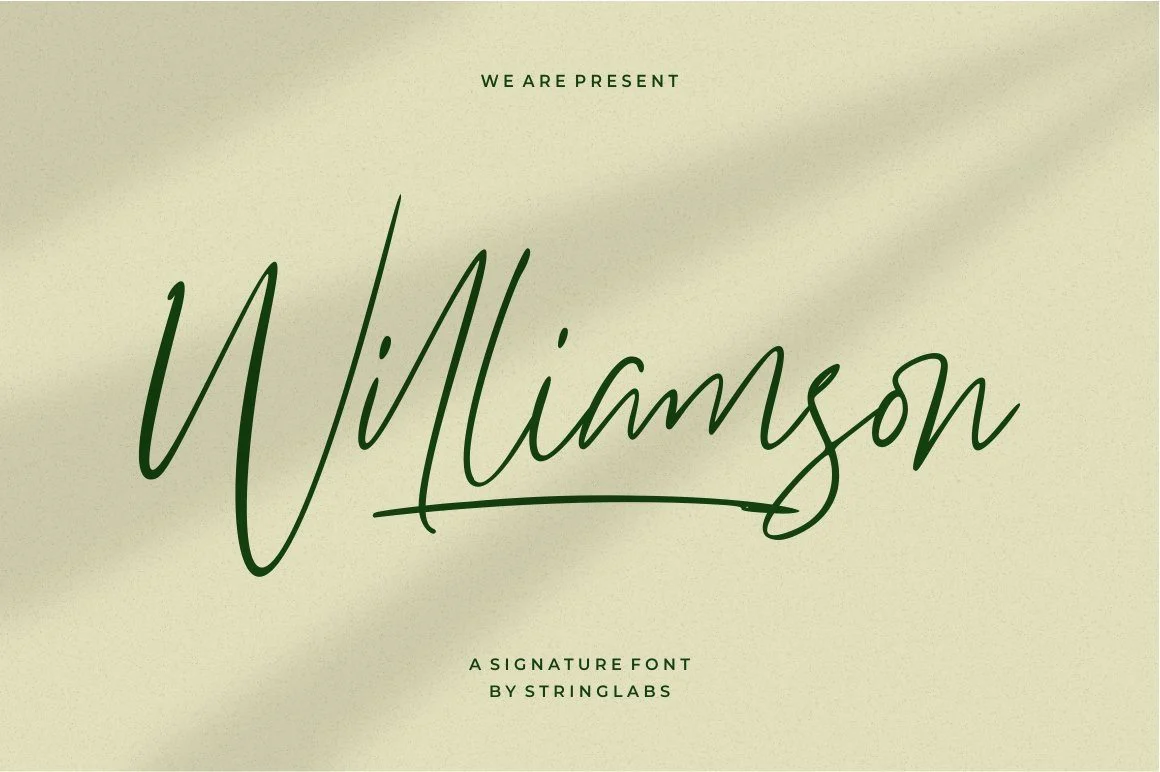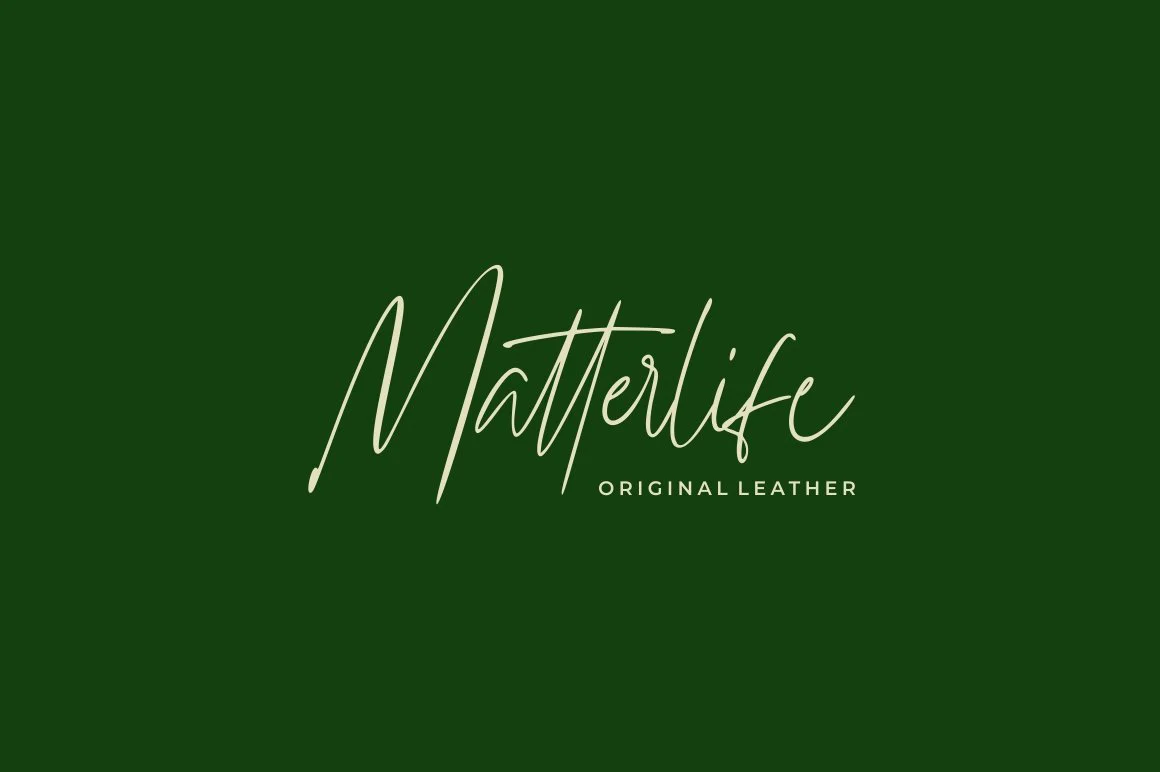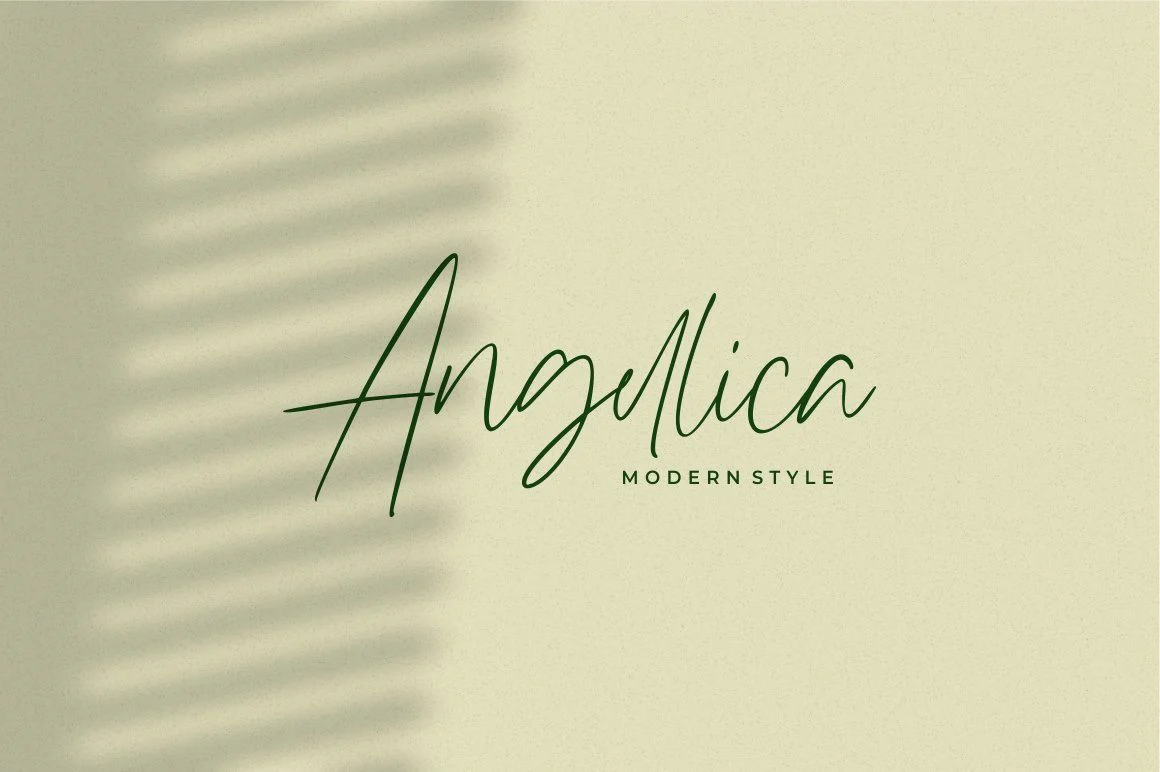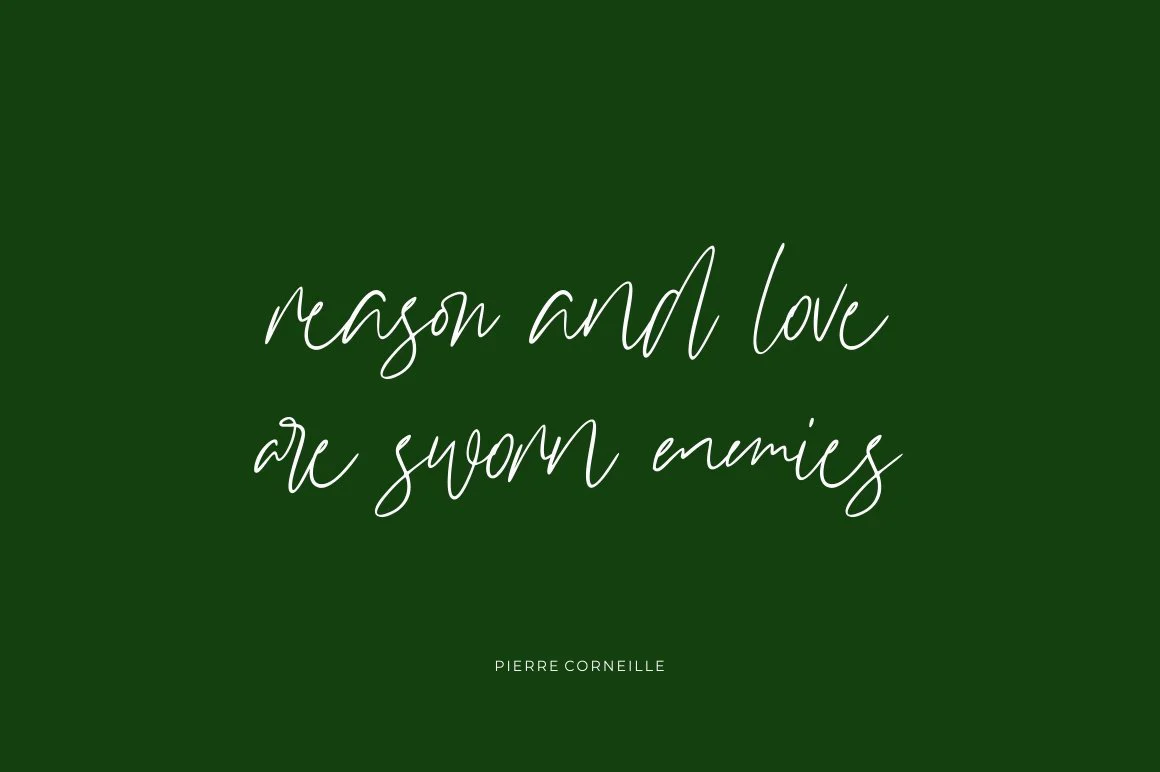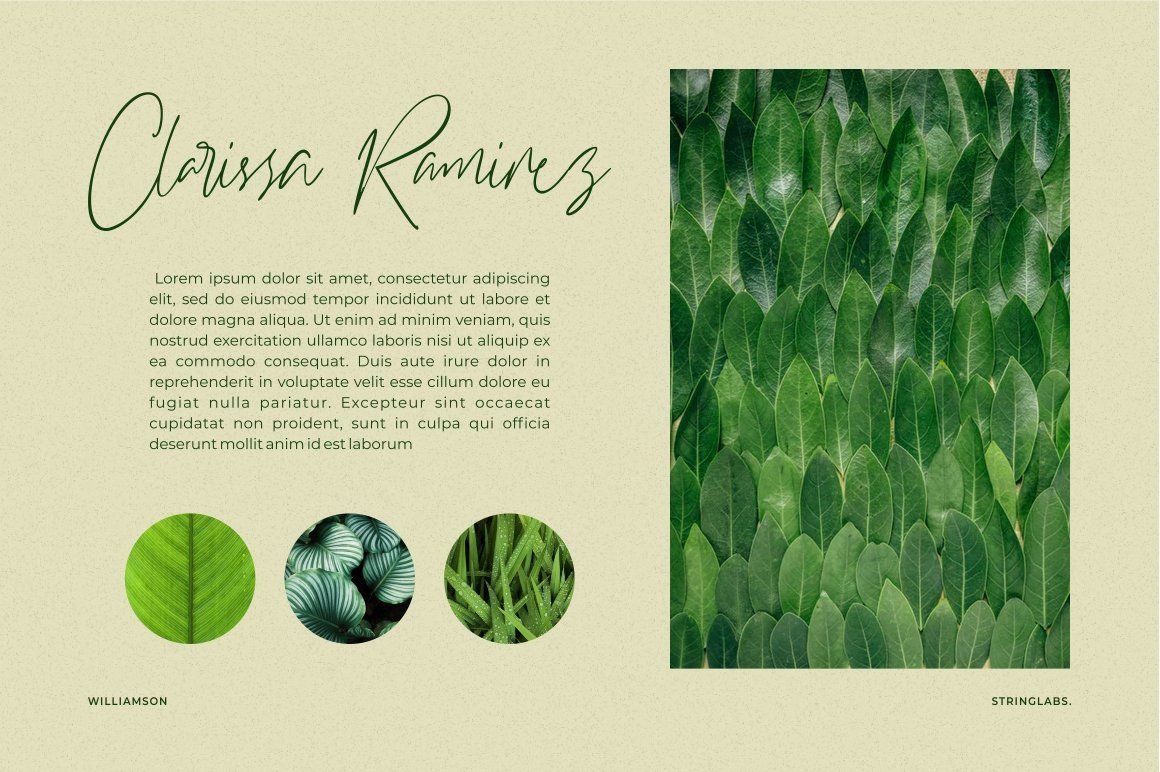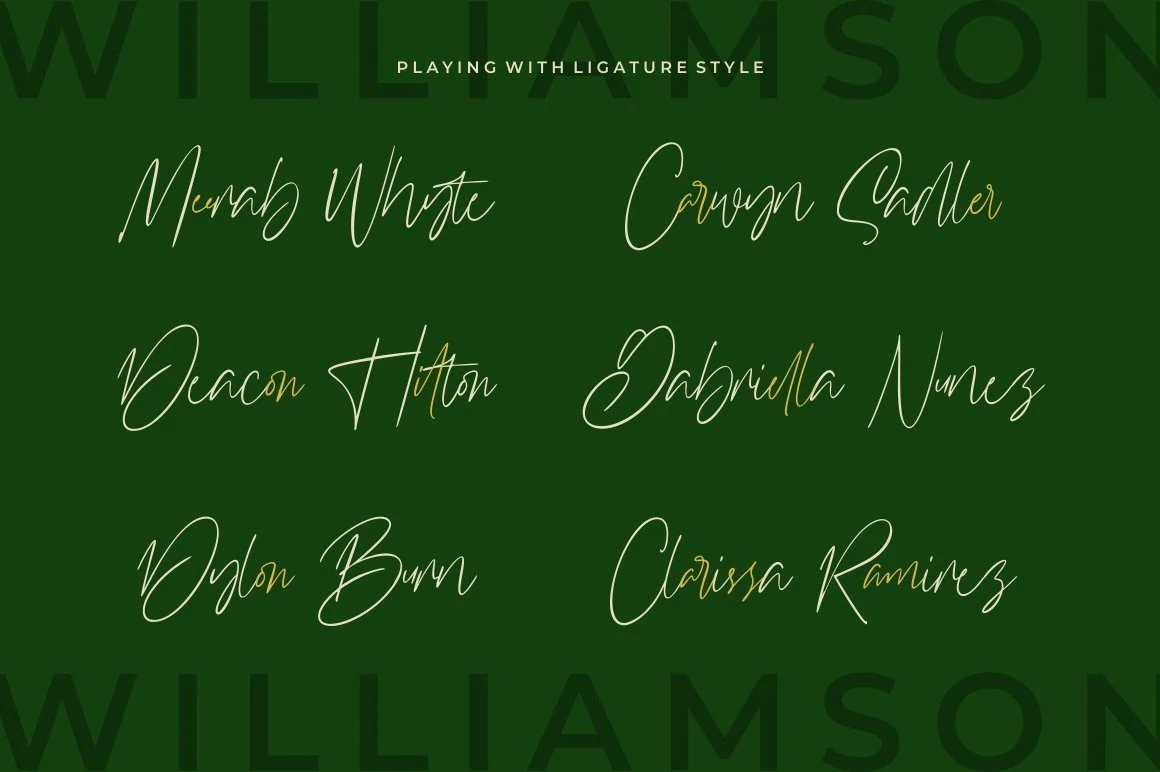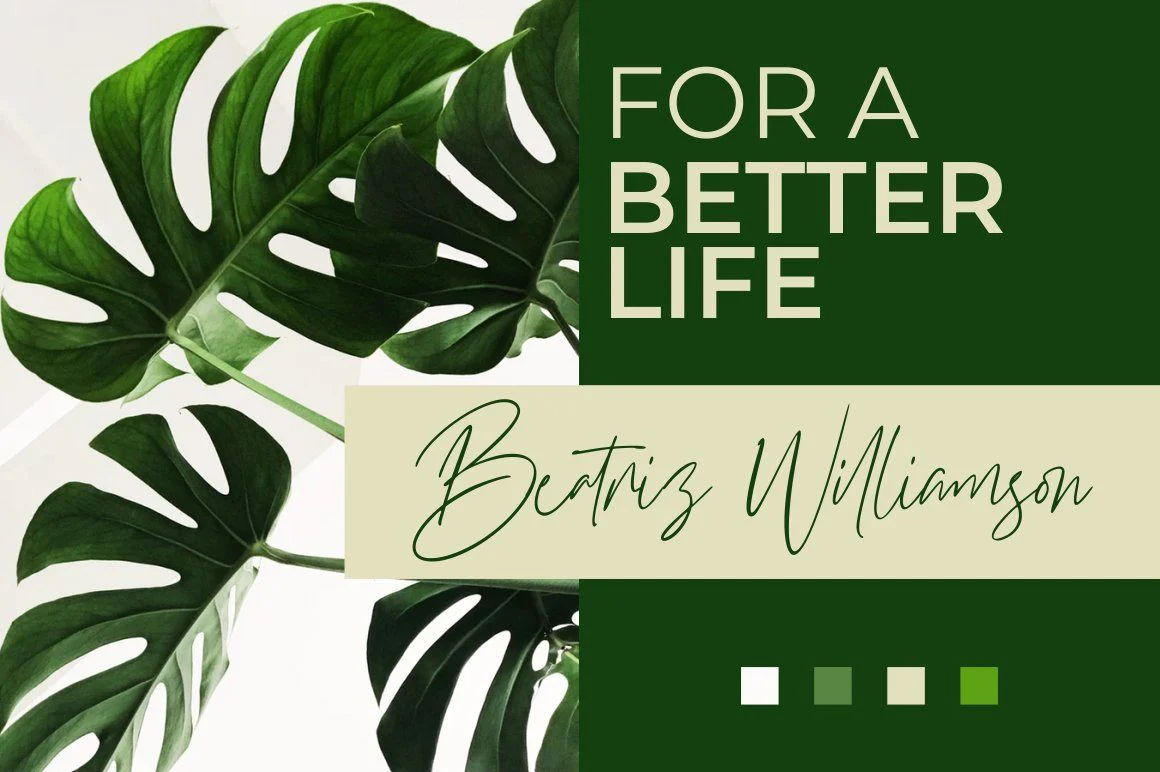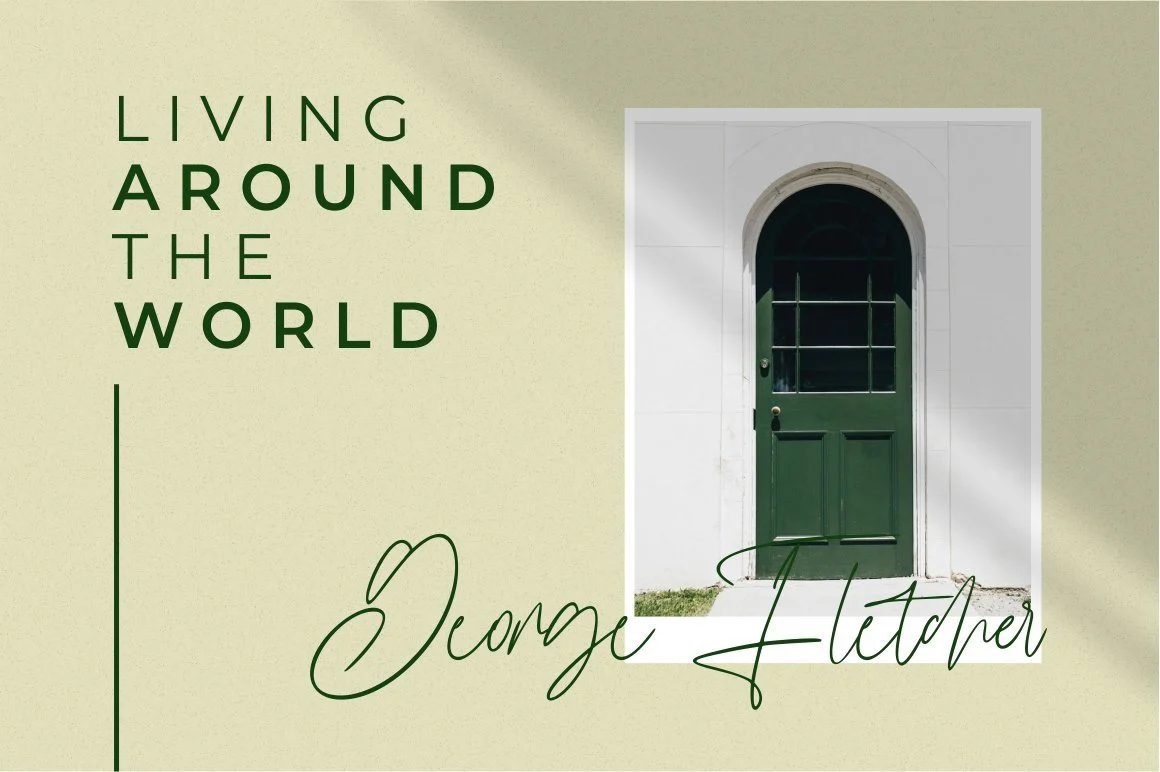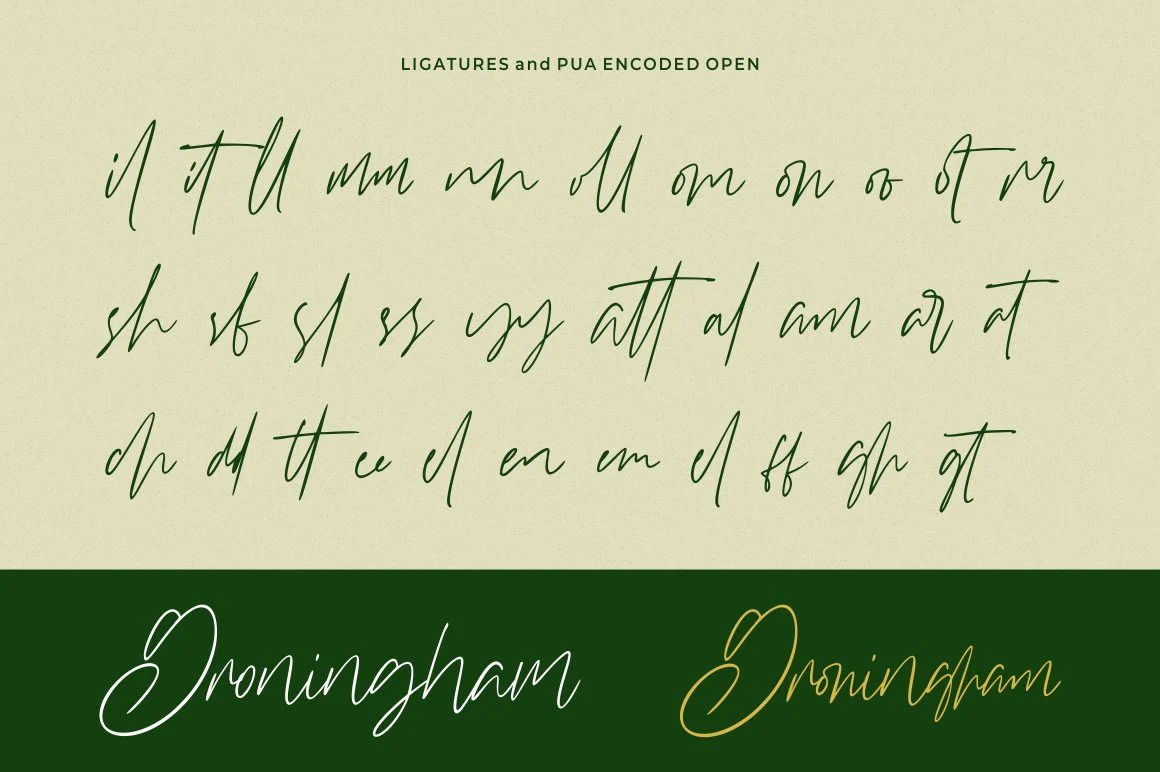
Williamson - Luxury Signature Font
Introducing Williamson - Luxury Signature Font
This Font Template contains Modern, Elegant, Creative, Professional and Unique Concept.